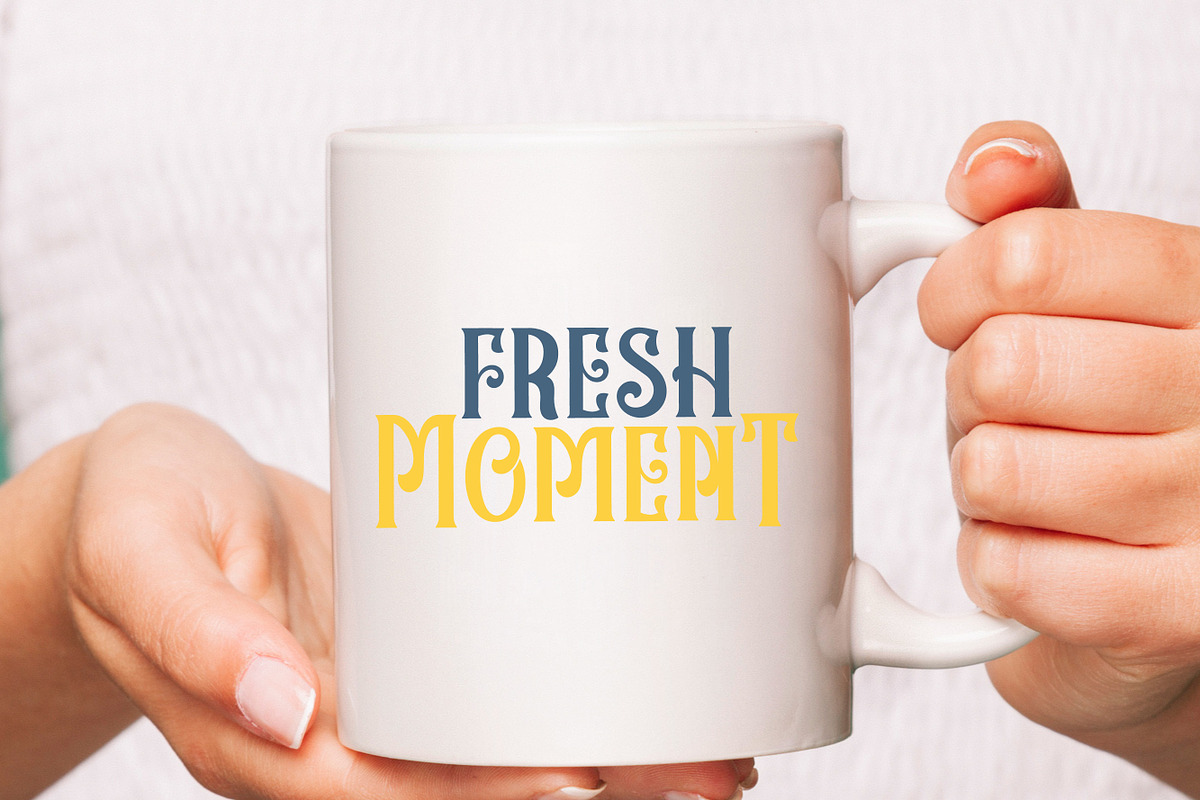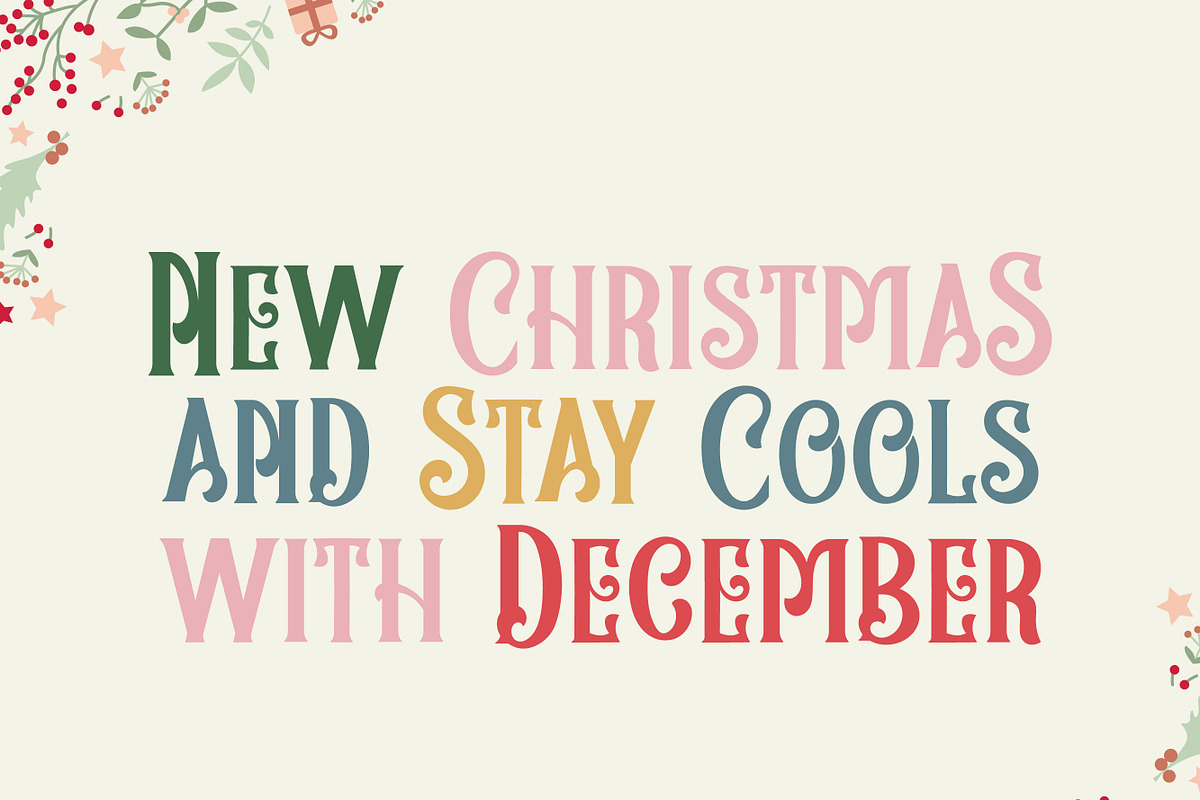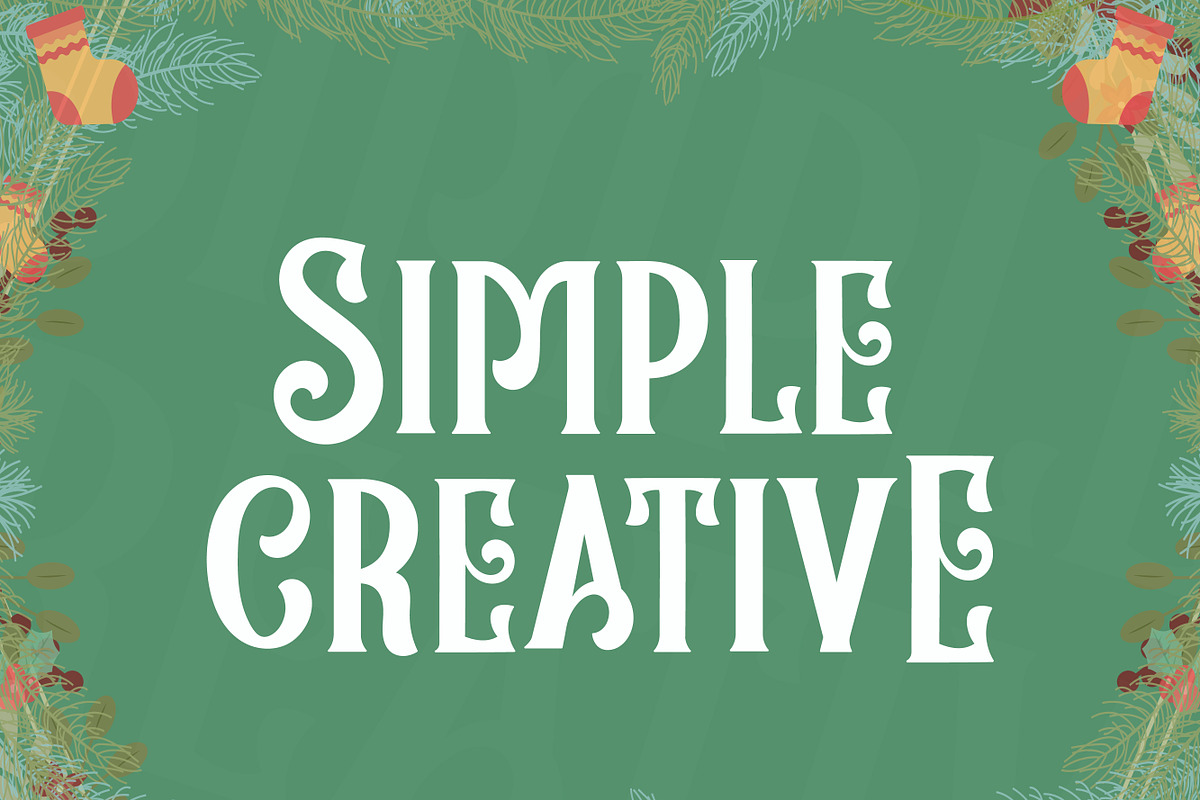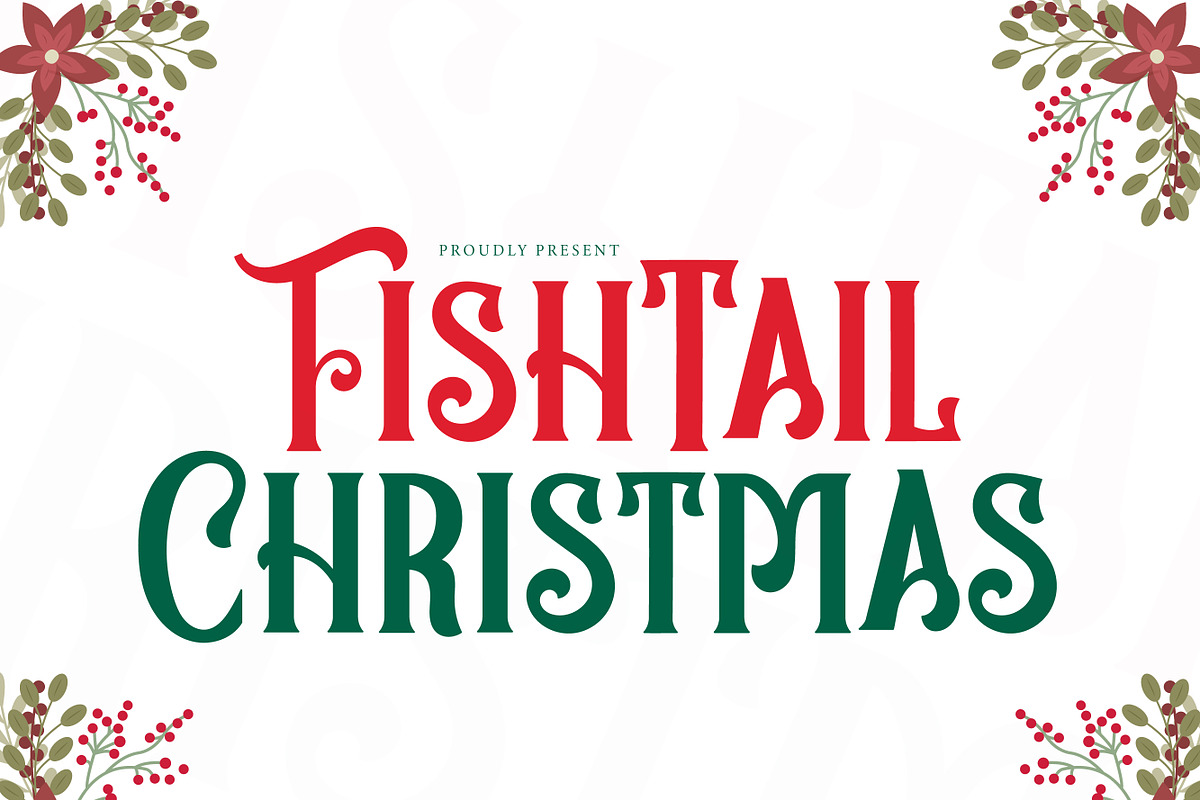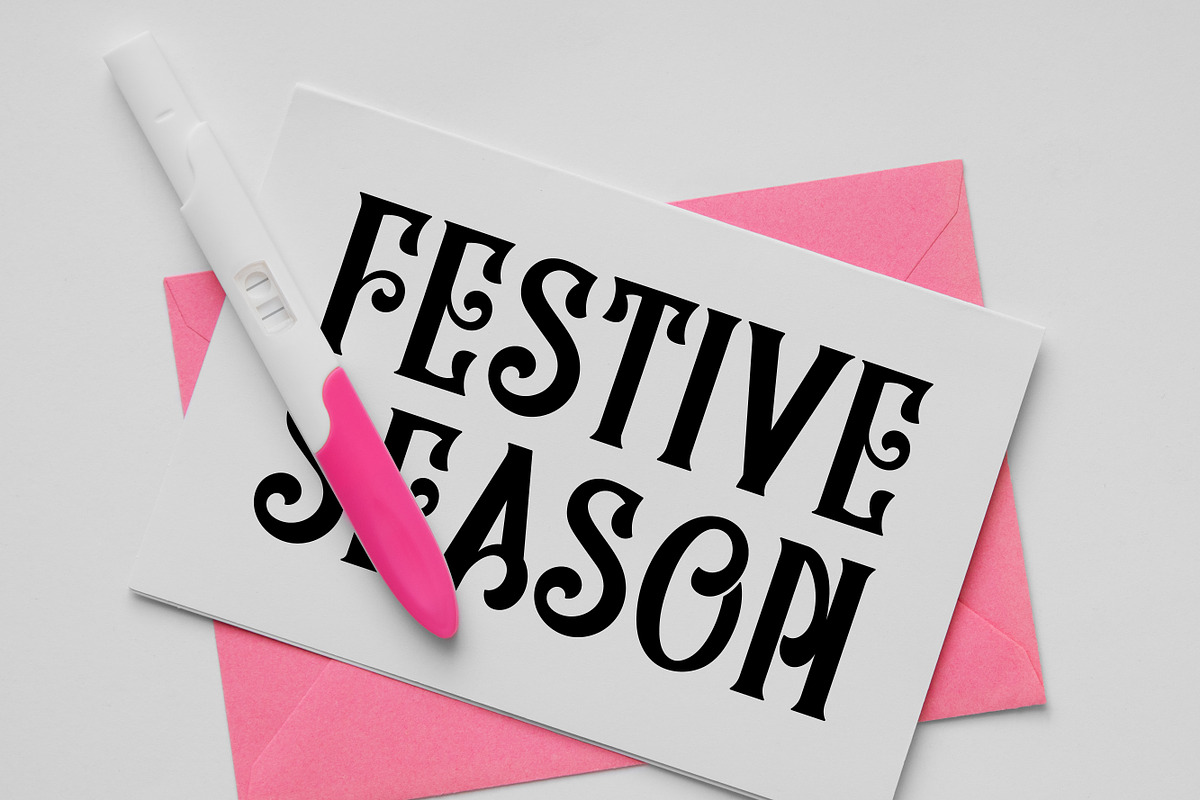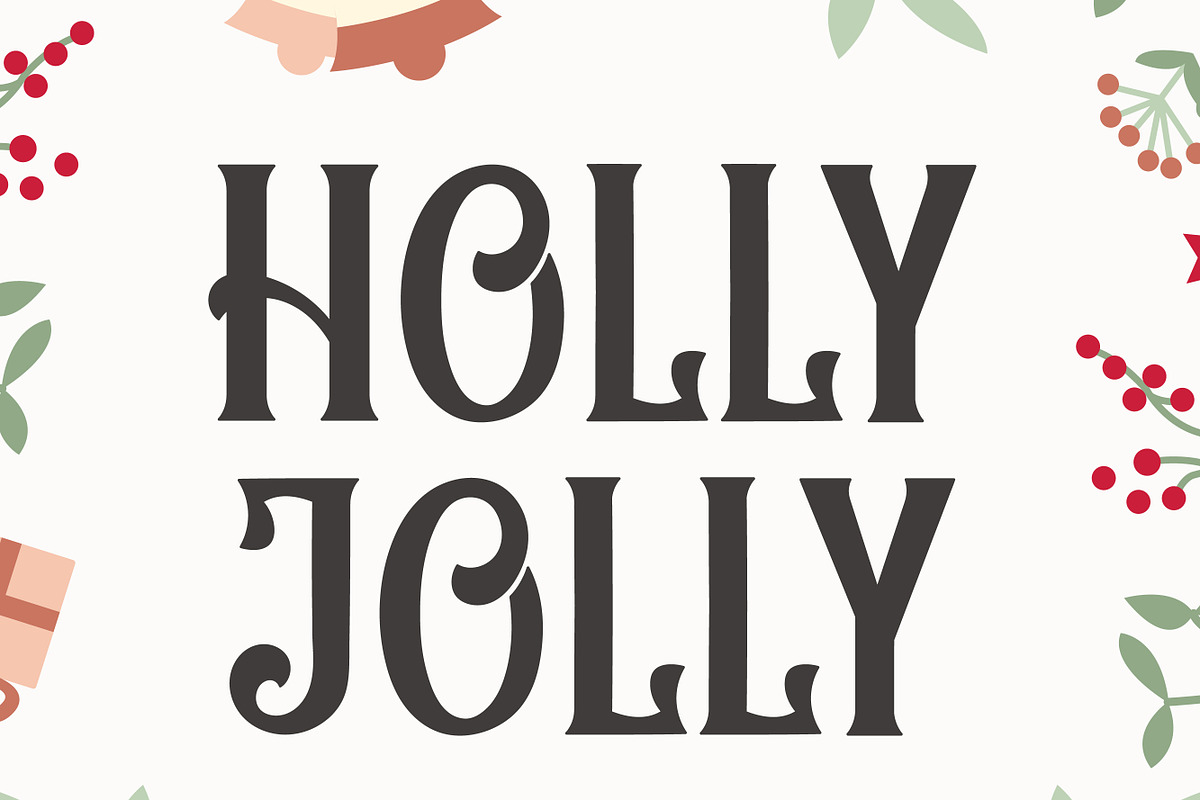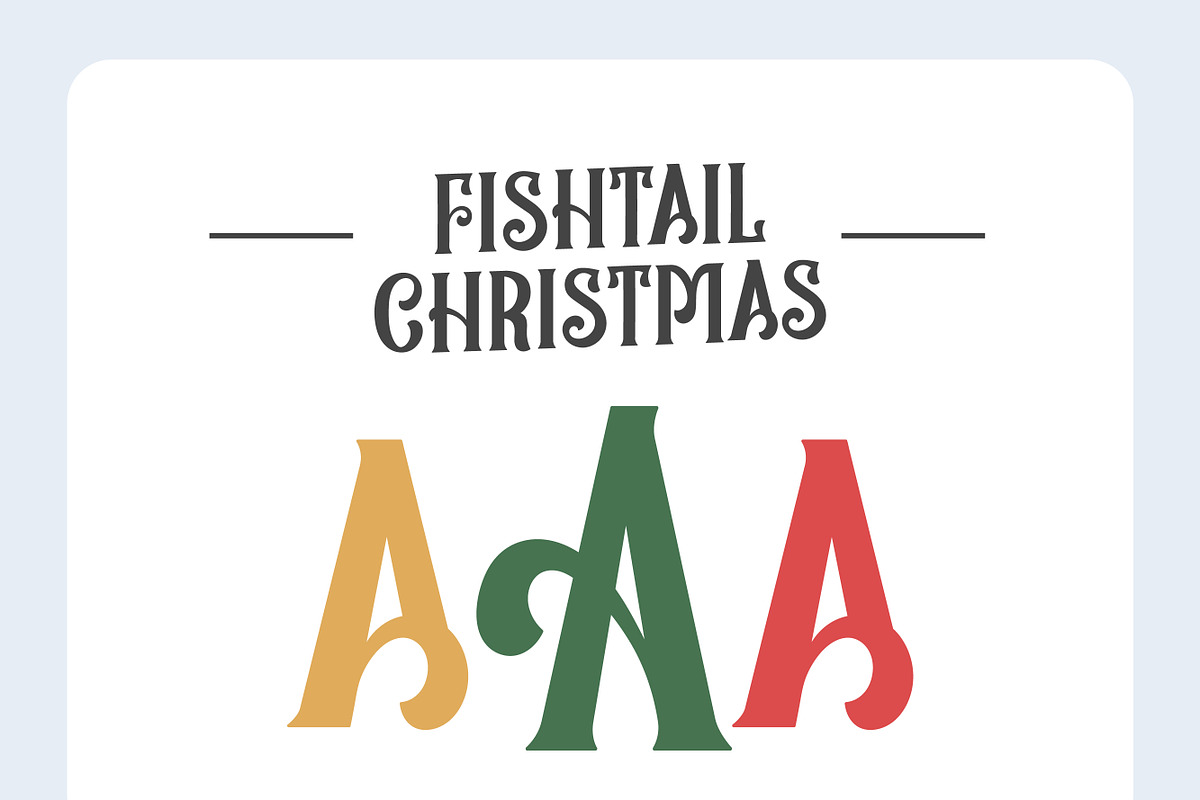
Fishtail Christmas
Fishtail Christmas is an elegant Christmas monogram font designed with beautiful fishtail-inspired details. Ideal for embroidery, personalized monograms, holiday décor, gift tags, apparel, Cricut projects, and festive branding. Create timeless holiday designs with a unique handcrafted charm.